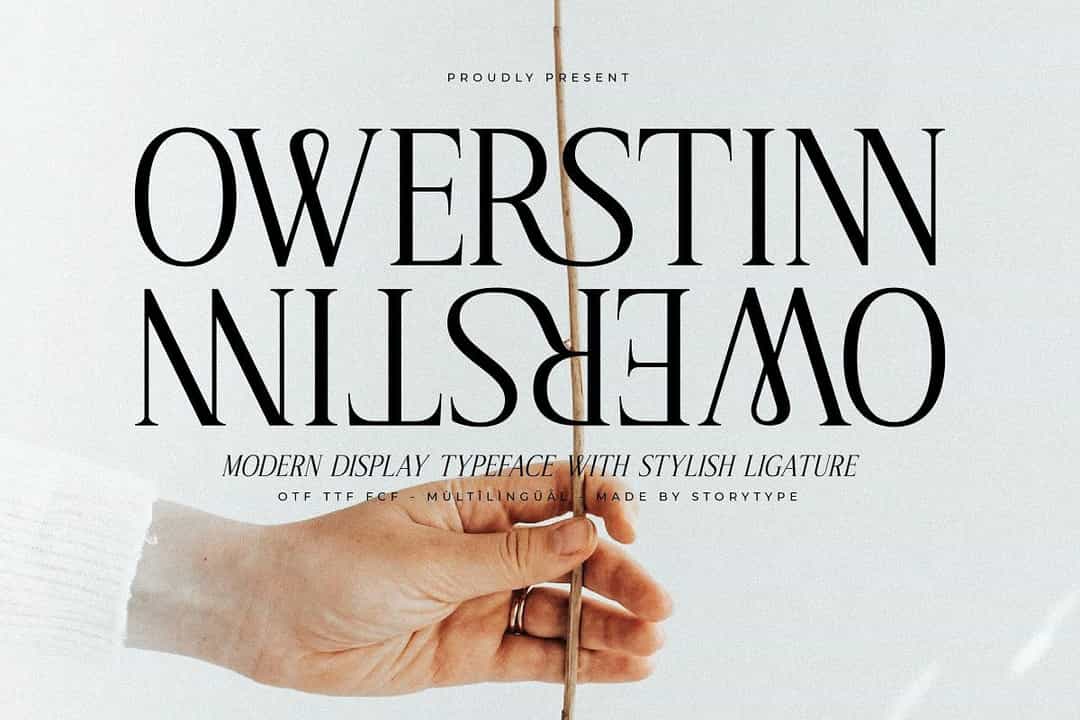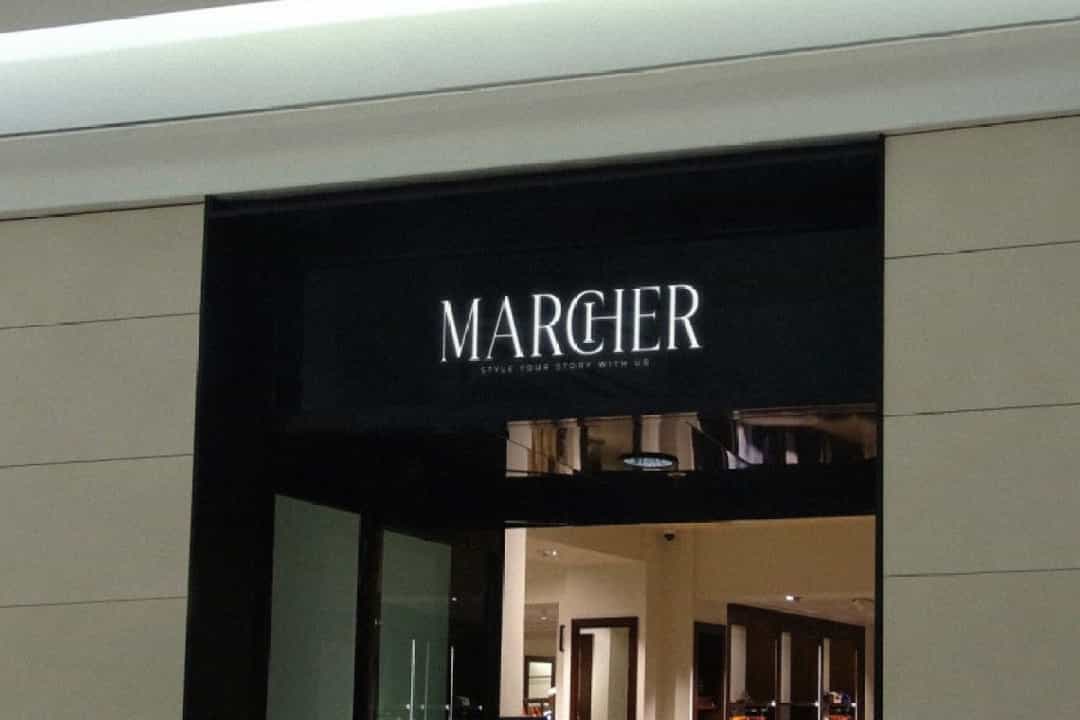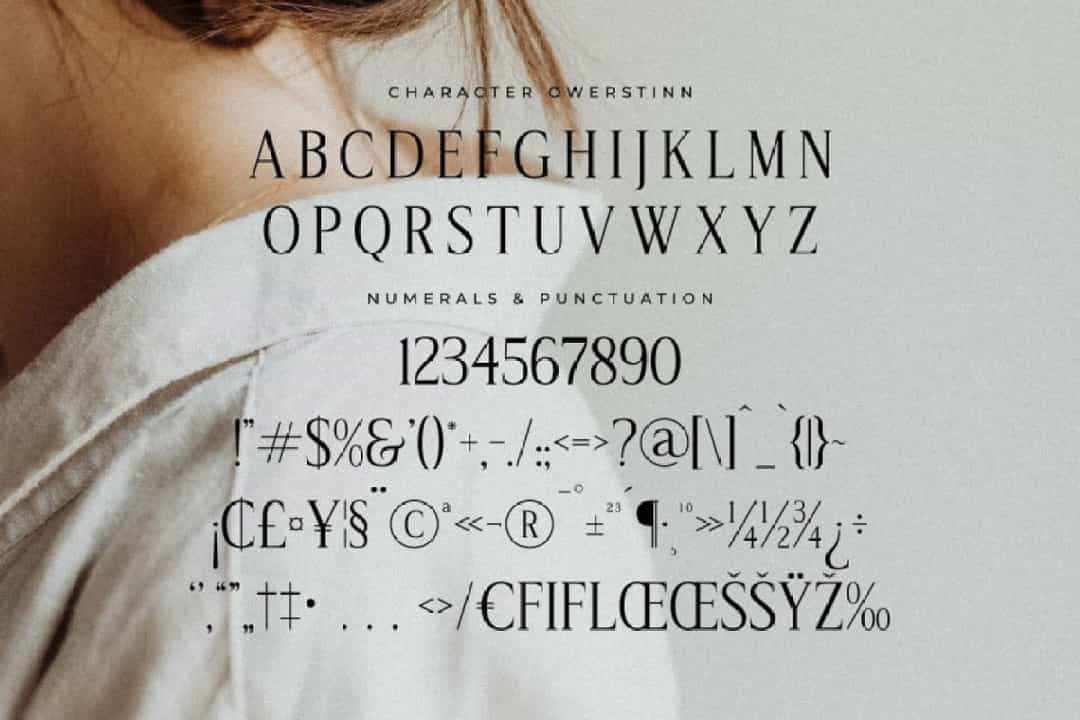
Owerstinn Font, designed by Storytype is an elegant serif typeface which stands out from its contemporary and timeless counterparts with its distinct style and contemporary look. Perfect for creating classy logos, book, film title designs, clothing brand names, lettering designs, quotes etc.